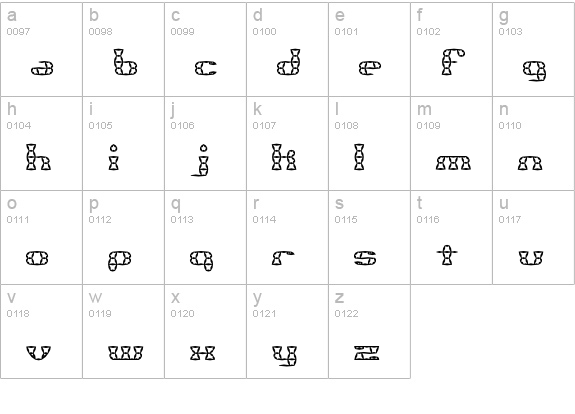
Introducing Brass Knuckle Star BRK font, a bold and powerful typeface that exudes strength and attitude. With its rugged and edgy appearance, this font is perfect for making a statement in your designs. The sharp angles and detailed lines of Brass Knuckle Star BRK font give it a distinct and unique look that will set your work apart. Best of all, Brass Knuckle Star BRK font is completely free to use! You can easily download this font at FontsMarket.com and start incorporating it into your projects right away. Whether you're working on a poster, logo, or any other design project that needs a touch of boldness, Brass Knuckle Star BRK font is sure to make a lasting impression. So go ahead and add this free font to your collection today!